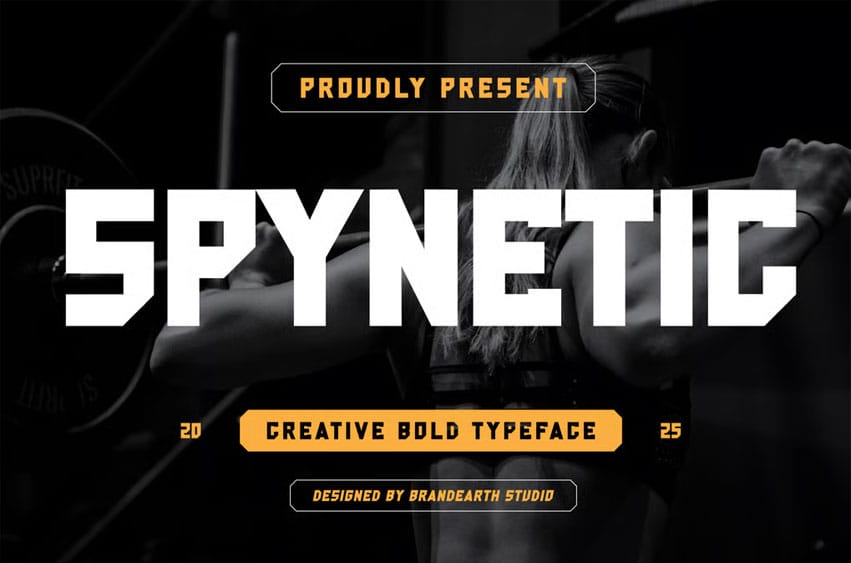
Spynetic Font is a strong and dynamic, bold display font designed for powerful and high-impact visuals. It features sharp, geometric letterforms with an industrial and athletic feel, making it perfect for sports branding, gym promotions, posters, logos, and merchandise.
The aggressive and edgy style of Spynetic brings energy and confidence to any design, helping your message stand out with a bold and commanding presence. Ideal for projects that need a tough and modern look!